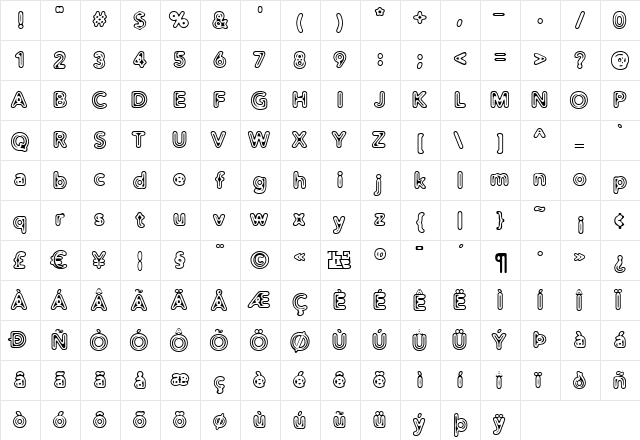
Distro Extinct Regular
| Designer | Peter Ramsey & Apostrophe |
Design Context for Distro Extinct Typeface
Distro Extinct is a composed and adaptable typeface that performs quietly and consistently across a wide range of design contexts.